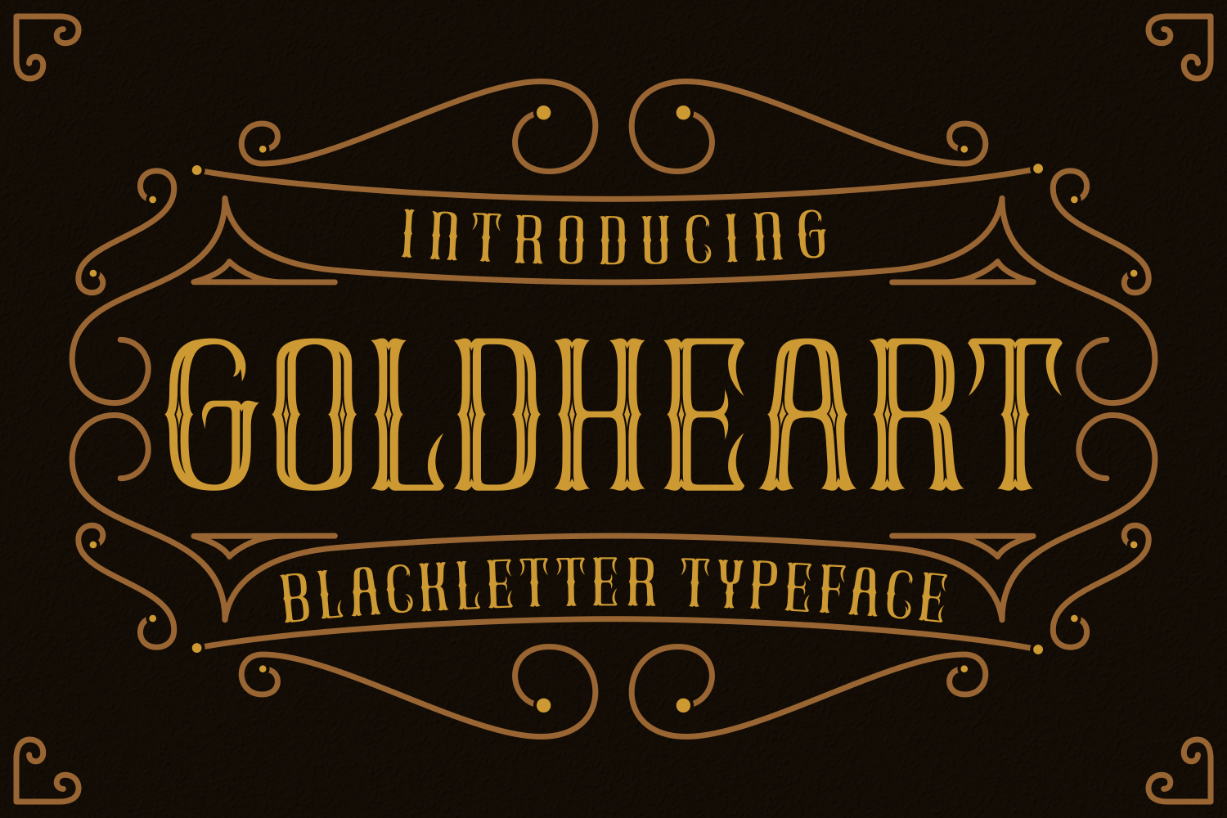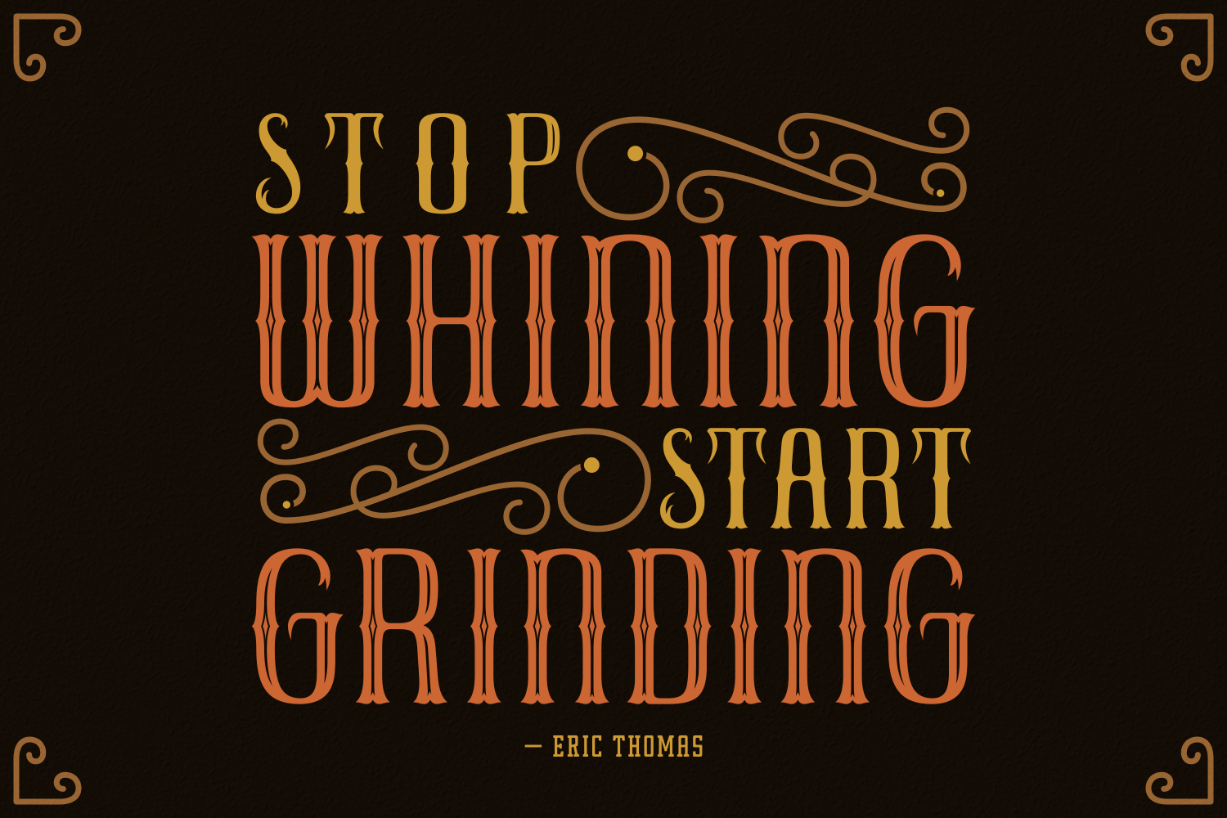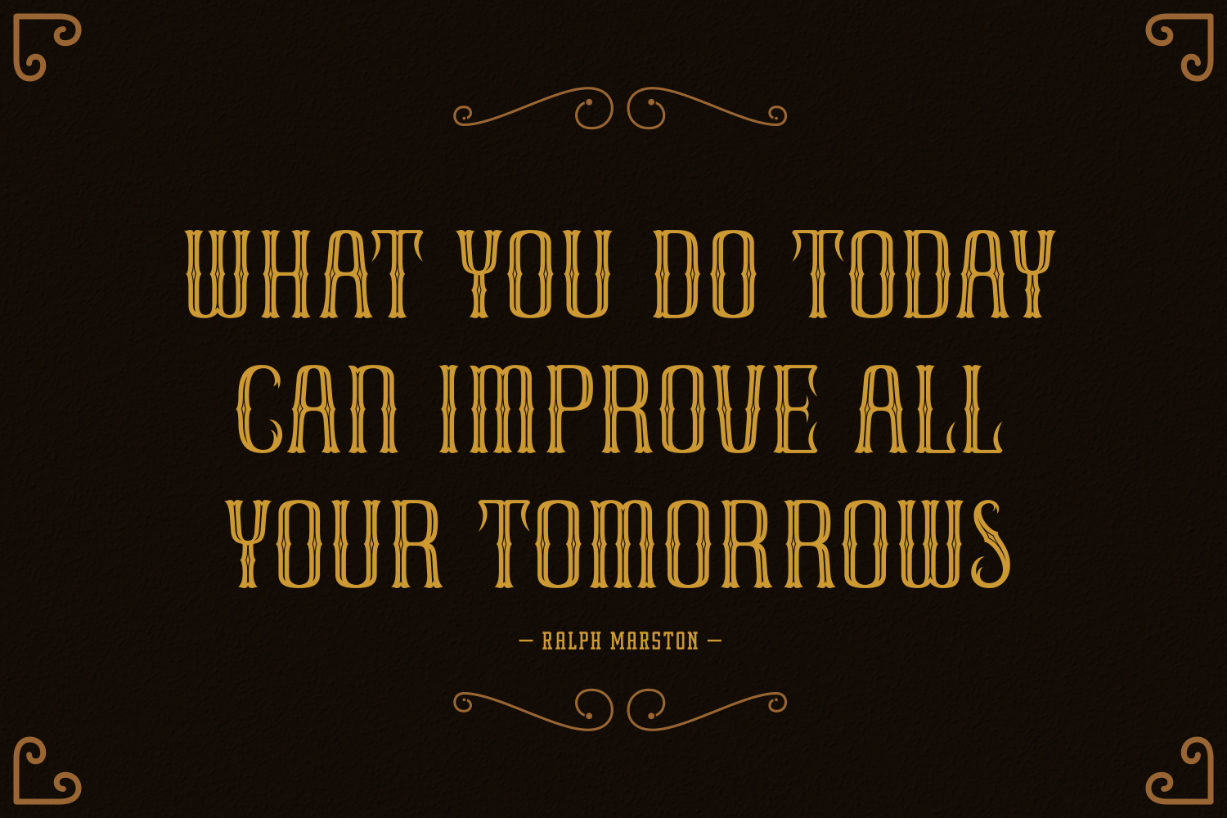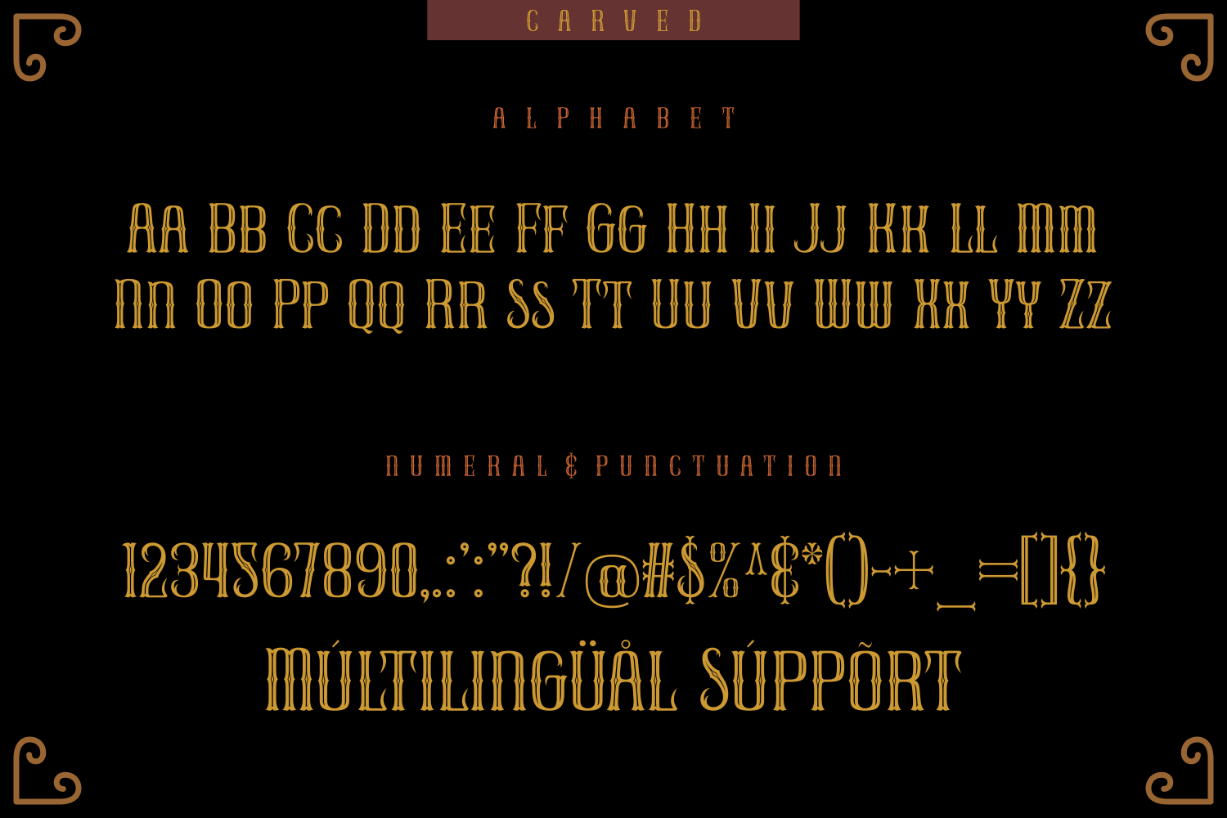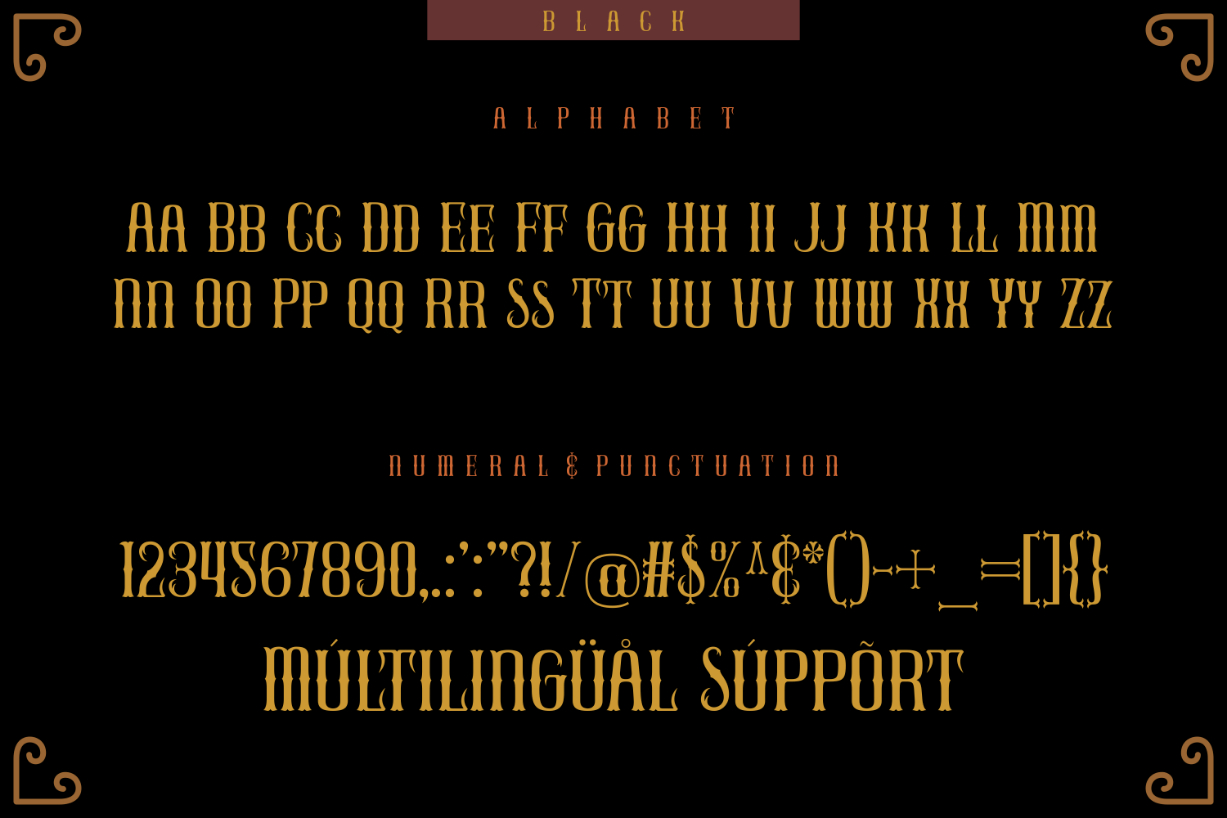
GoldHeart Font
About GoldHeart Font
GoldHeart is an elegant and distinct blackletter font. No matter the topic, this font will be an incredible asset to your fonts’ library, as it has the potential to elevate any creation.